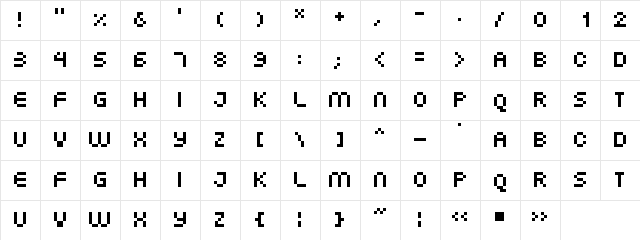
FFF Atlantis Cyrillic Attempt Regular
Design Context for FFF Atlantis Cyrillic Attempt Typeface
FFF Atlantis Cyrillic Attempt is a composed and adaptable typeface that performs quietly and consistently across a wide range of design contexts.